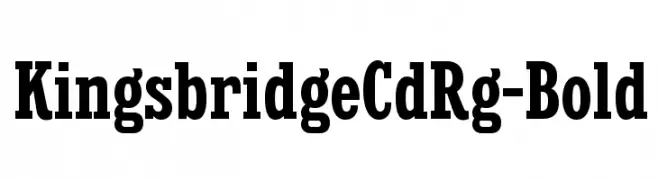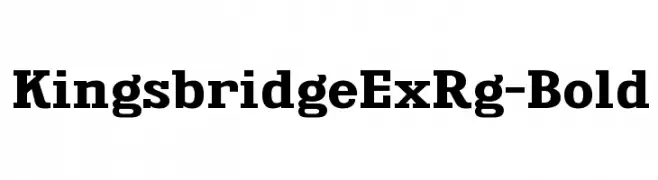
( Font by McKack )
A bold, playful handwritten font with rounded, consistent strokes.
A bold, playful font with whimsical, rounded letterforms.
A bold, italic script font with a playful and adventurous style.
A bold, angular font with a dynamic and geometric style.
( Fonts by Typodermic Fonts )
A bold, classic serif typeface with strong, authoritative characters.
( Fonts by Typodermic Fonts )
A bold, italicized, and condensed font with high contrast, ideal for impactful headlines.
( Fonts by Typodermic Fonts )
A bold serif font with strong strokes and pronounced serifs, ideal for impactful designs.
( Fonts by Typodermic Fonts )
A bold, italicized font with strong strokes and a dynamic slant.
( Fonts by Typodermic Fonts )
A bold serif font with strong strokes and pronounced serifs, ideal for impactful designs.